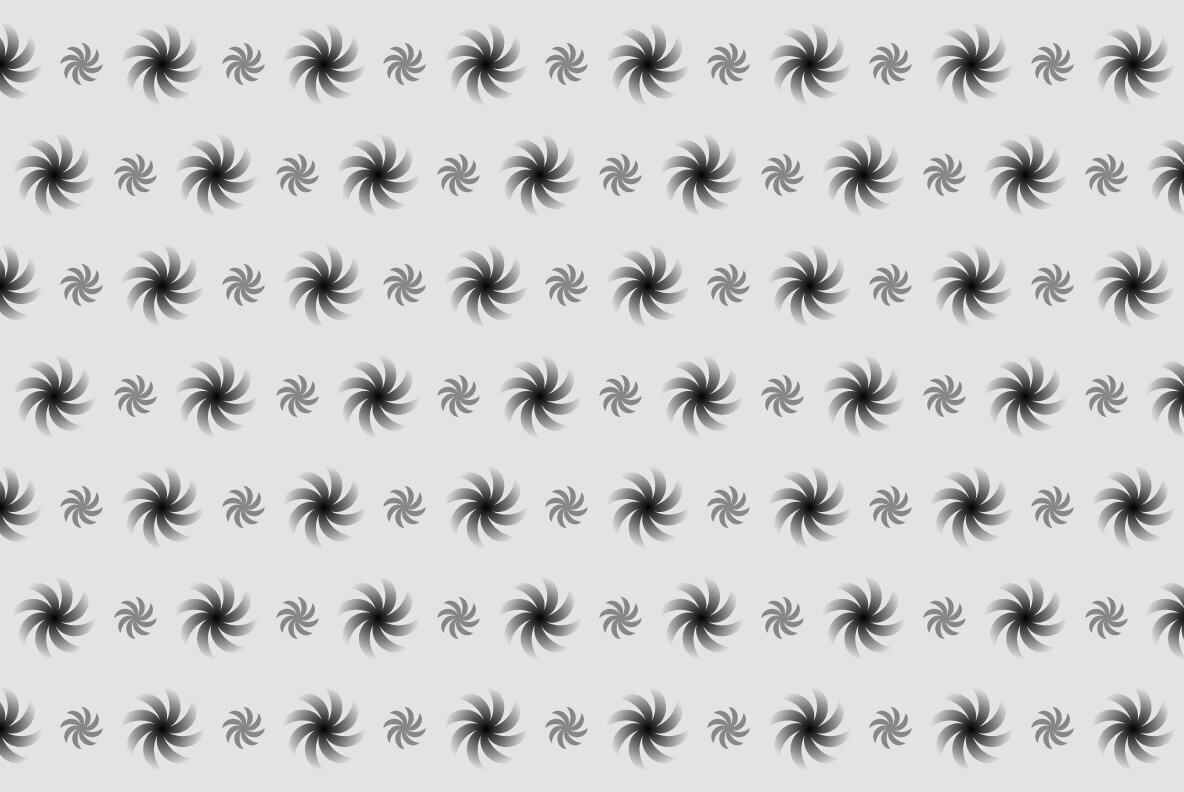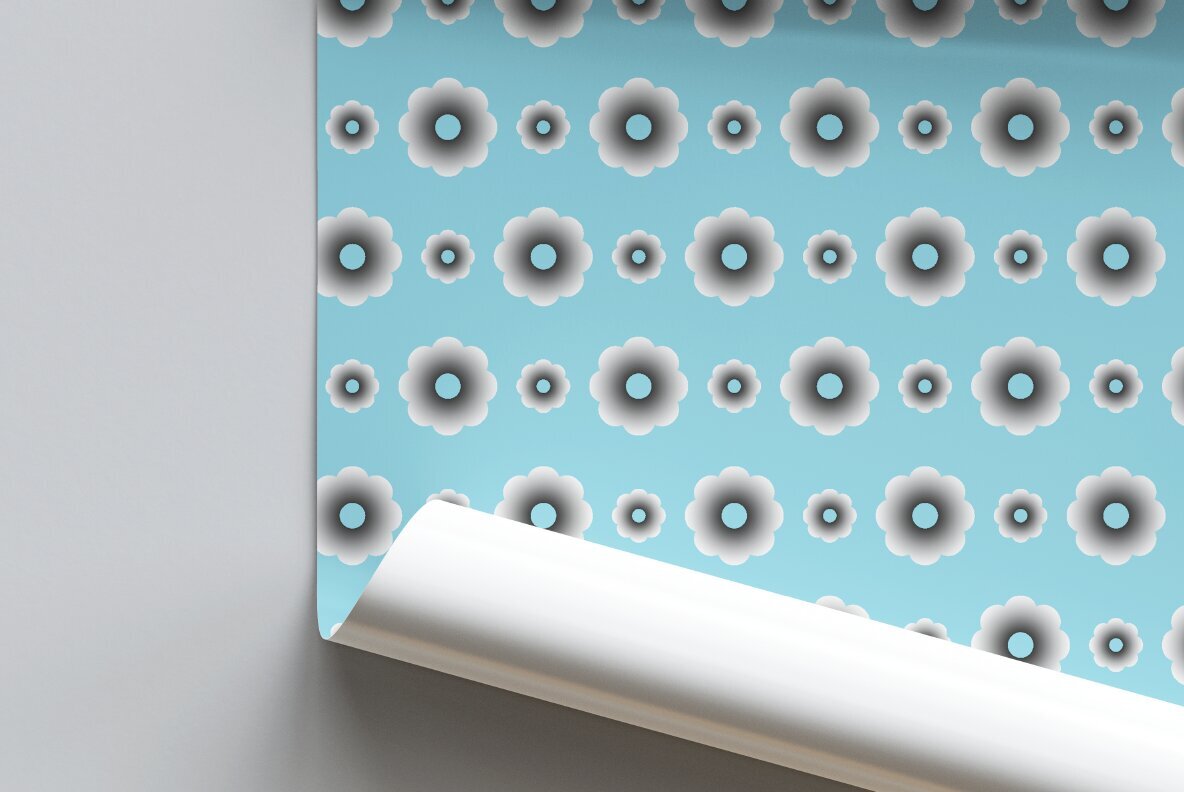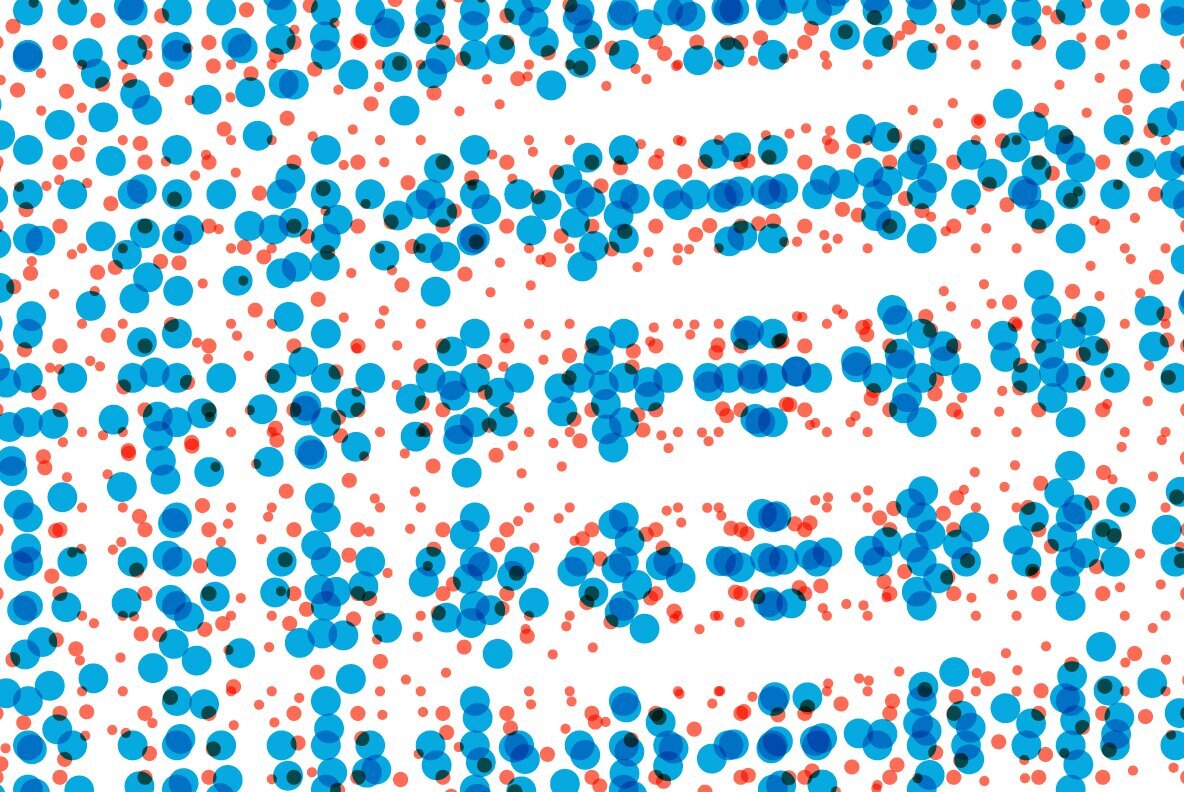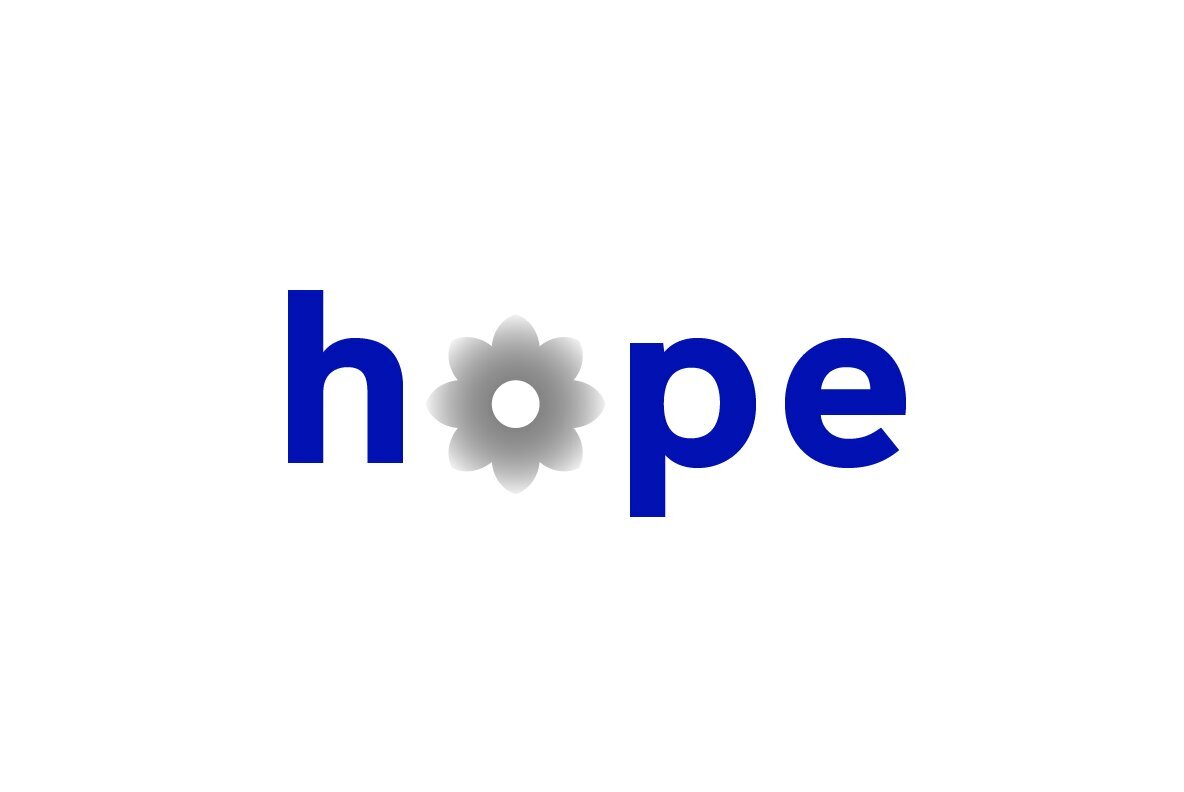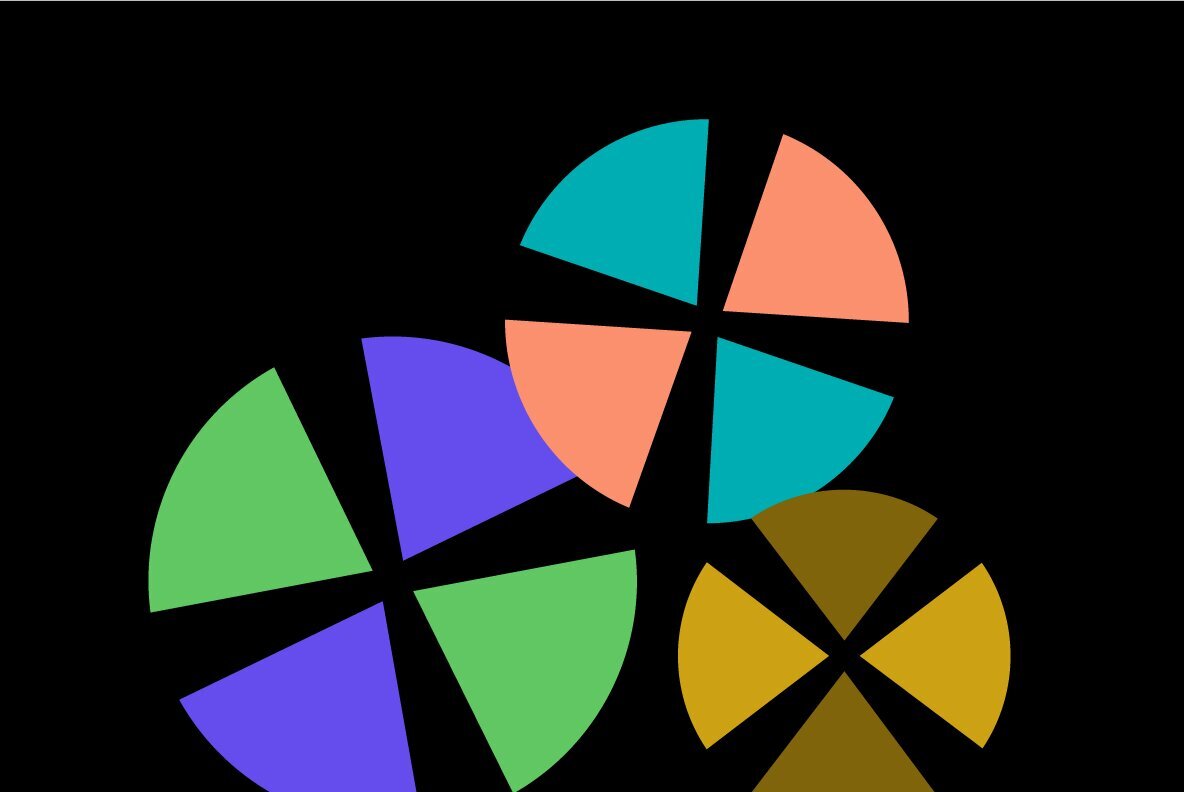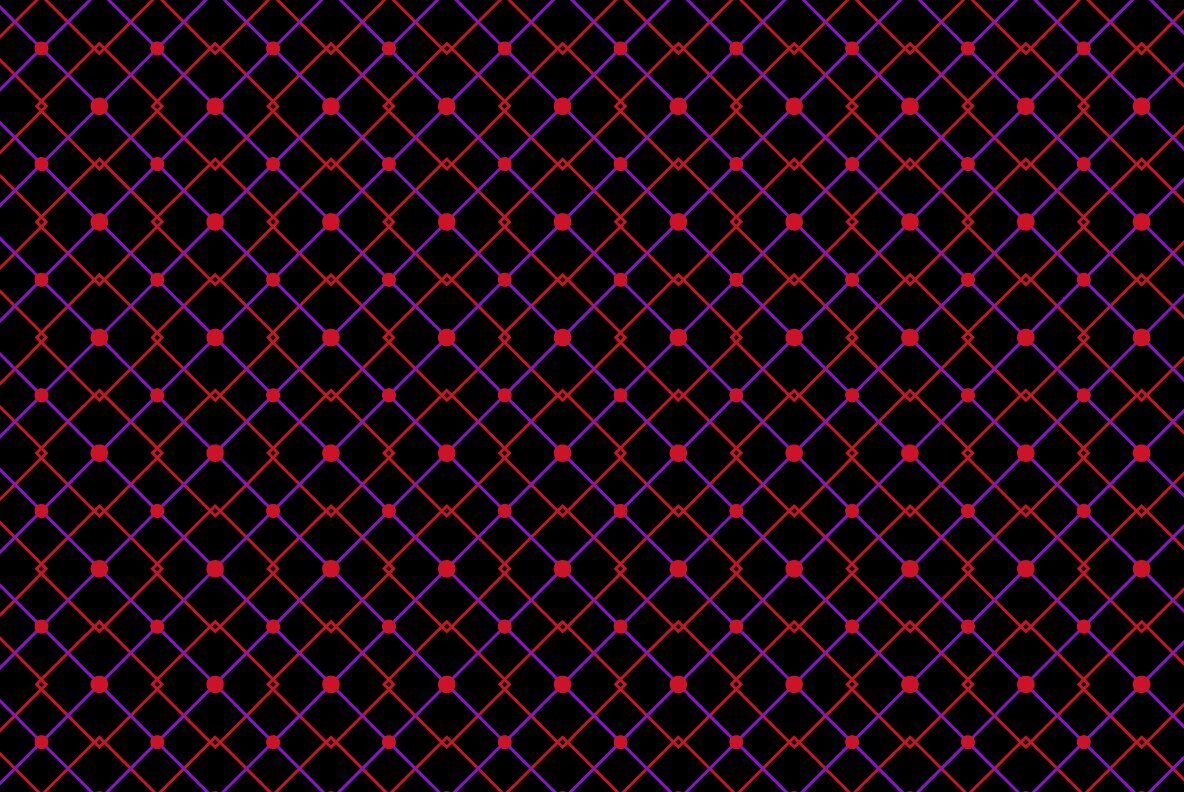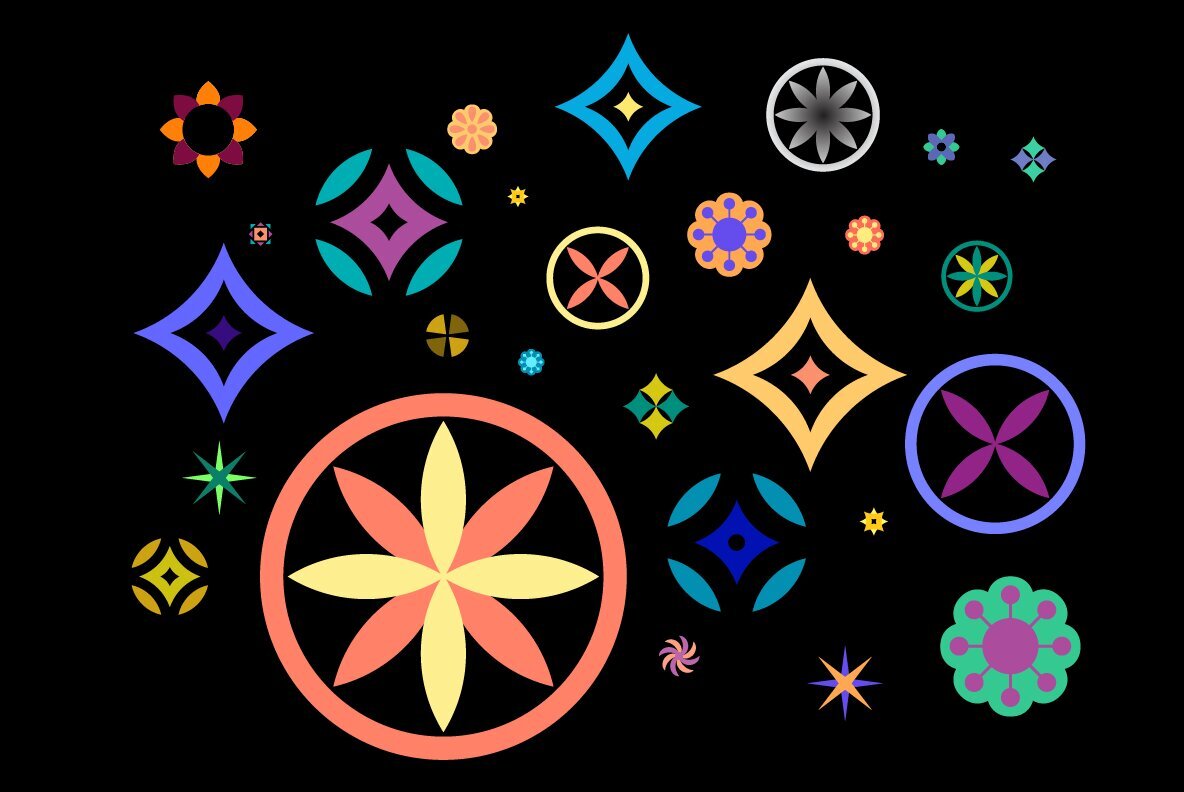
Poeta Color Font
Poeta Color is an ornamental color font family for making patterns and text decoration. It contains floral, nature, abstract motifs, and a universe of creative possibilities.
The symbols are versatile enough for simple decoration or festive holiday moods. Designers can use Poeta to make unique lines, borders, backgrounds, or ornamentation within or around text. Try replacing a simple straight line with repeated symbols. Cover an area in a pattern to add visual interest to a design. Use the forms to decorate a chapter title or to mark the end of a magazine article. Replace a letter with a symbol to create a memorable word. Poeta will add visual poetry to any design project.
This font began with sketches of patterns seen in ceramic tiles around Sicily. It is named Poeta because Sicily is an island rich in poetry traditions.
Six of the fonts have different color or grey combinations. One of the fonts (solid) is a standard font. The font previews on this website will only display the font in black. See the slides to get an idea of the colors. Be assured that the colors are present in the files and will appear when loaded on the computer.
Below are the colors that are in each font:
Primary: red, yellow, blue
Secondary: orange, green, purple
Tertiary: red-orange, yellow-green, blue-violet, red-violet
Diverse: many different warm and cool colors
Grey: three different greys from light to dark
Gradient: a greyscale gradient
Solid: standard font and can be colored normally